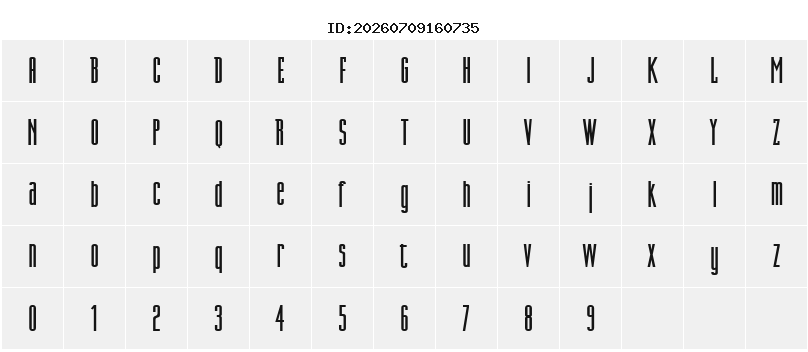
• Font Name: DN Titling
• Copyright: Copr. 2014, Nick Matavka. Based on the font used on cover of Dianetics, a seminal pop-psych textbook.
About DN Titling.ttf
DN Titling.ttf is a modern, elegant sans-serif font designed for ultimate readability and visual harmony. Perfect for branding, headlines, web design, and print materials.